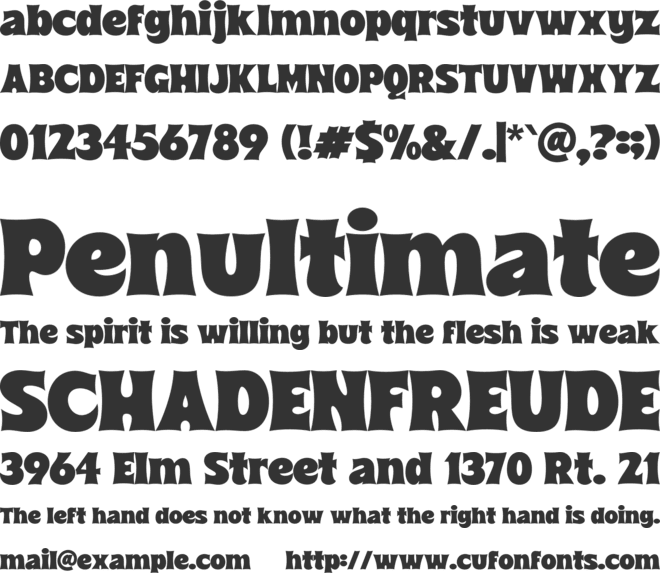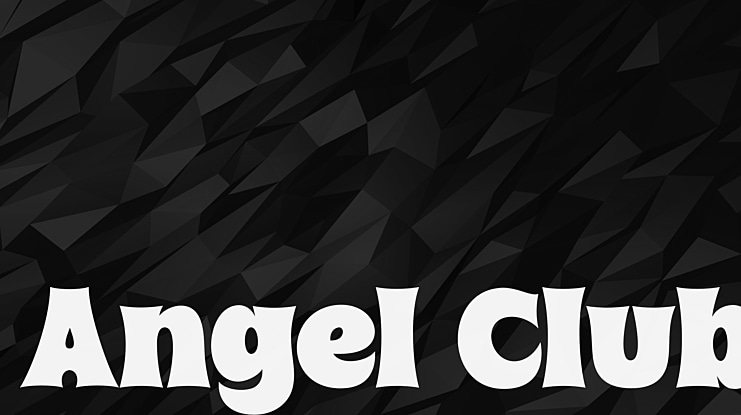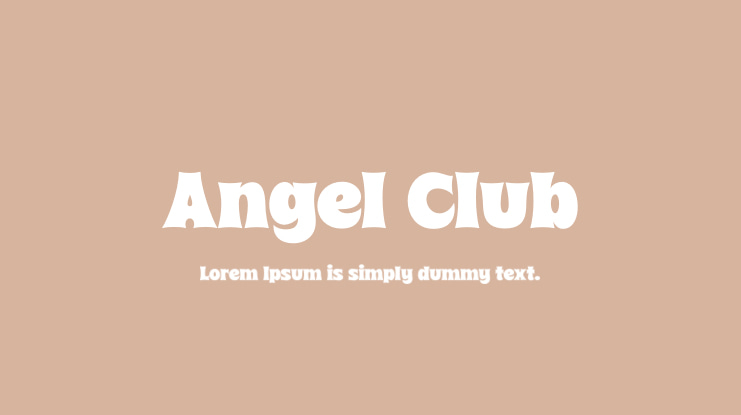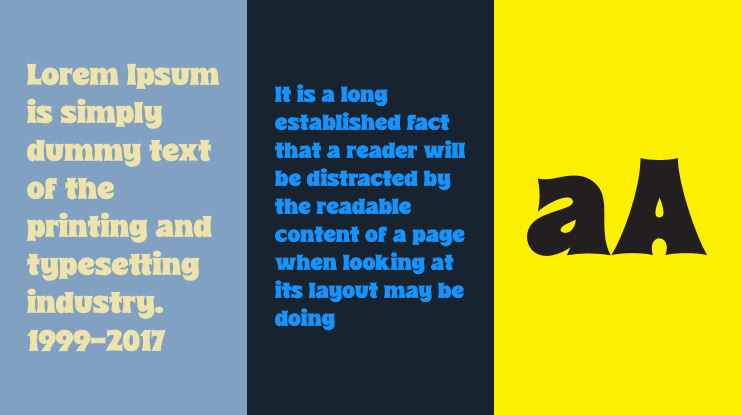
Angel Club Font
Angel Club font is a retro serif and bold display font. You will get four types of fonts in this pack, Regular, slanted and Shadow version. Use this display font to add that special retro touch to any design idea you can think of!